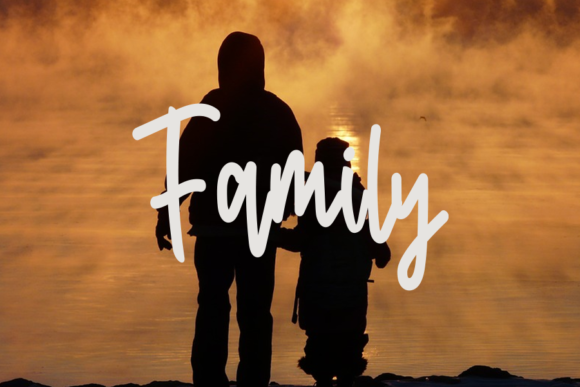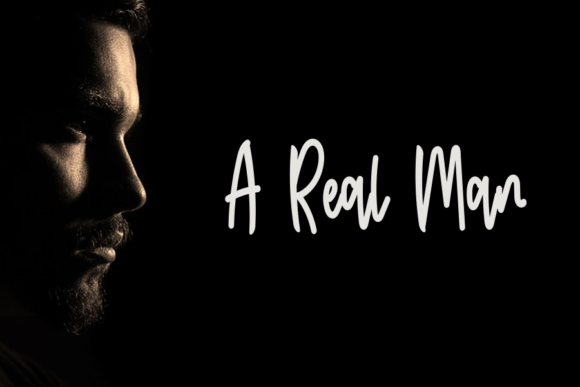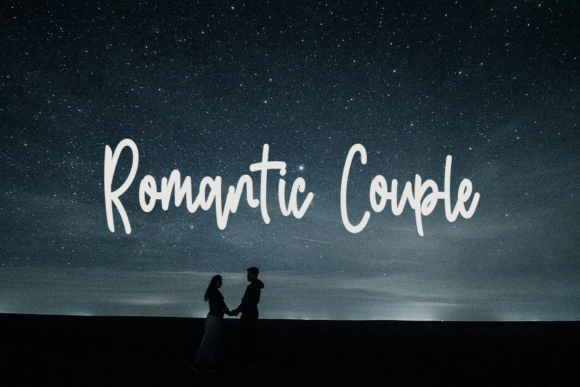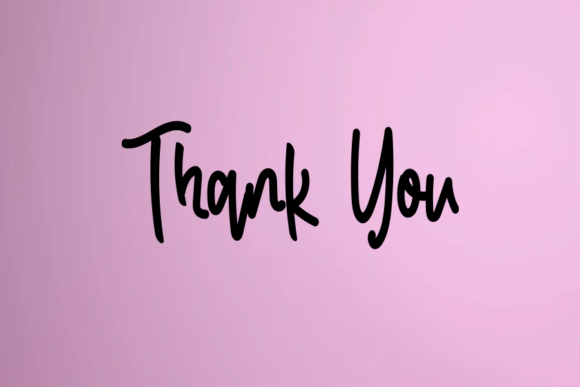
Introducing Happy Lovely Font: The Chic, Modern, and Simple Lettered Handwritten Font
Are you a designer, crafter, or DIY enthusiast looking for a font that can elevate your creative projects? Look no further than Happy Lovely Font, a beautiful, modern, and simple lettered handwritten font that’s perfect for a wide range of designs. In this article, we’ll explore the features and benefits of Happy Lovely Font, and why it’s about to become your go-to font for all your creative endeavors.
What is Happy Lovely Font?
Happy Lovely Font is a stunning, hand-lettered font that’s been carefully crafted to bring a touch of elegance and sophistication to your designs. With its chic, modern, and simple style, this font is perfect for creating beautiful headings, titles, and text that will make your projects stand out. Whether you’re working on a branding project, a wedding invitation, or a DIY craft, Happy Lovely Font is the perfect choice.
Key Features of Happy Lovely Font
So, what makes Happy Lovely Font so special? Here are some of its key features:
- Handwritten style: Happy Lovely Font has a beautiful, handwritten style that’s perfect for creating personal and unique designs.
- Modern and simple: This font has a modern and simple aesthetic that’s perfect for creating clean and elegant designs.
- Chic and sophisticated: Happy Lovely Font has a chic and sophisticated style that’s perfect for creating high-end designs.
- Versatile: This font is perfect for a wide range of designs, from branding and advertising to wedding invitations and DIY crafts.
Why Choose Happy Lovely Font?
So, why should you choose Happy Lovely Font for your next project? Here are just a few reasons:
- Easy to read: Happy Lovely Font is clear and easy to read, making it perfect for creating designs that need to communicate a message.
- Unique and personal: This font has a unique and personal style that’s perfect for creating designs that stand out.
- Flexible: Happy Lovely Font can be used for a wide range of designs, from digital projects to print materials.
- High-quality: This font is high-quality and carefully crafted to ensure that it looks great in any design.
How to Use Happy Lovely Font
Happy Lovely Font is easy to use and can be incorporated into a wide range of designs. Here are a few ideas to get you started:
- Branding and advertising: Use Happy Lovely Font to create beautiful logos, headings, and titles for your brand.
- Wedding invitations: This font is perfect for creating beautiful and elegant wedding invitations.
- DIY crafts: Happy Lovely Font can be used to create beautiful and unique DIY crafts, such as signs, cards, and gift tags.
- Digital projects: This font can be used for digital projects, such as social media graphics, blog posts, and email newsletters.
In conclusion, Happy Lovely Font is a beautiful, modern, and simple lettered handwritten font that’s perfect for a wide range of designs. With its chic, sophisticated style and versatile features, this font is sure to become your go-to font for all your creative endeavors. Whether you’re a designer, crafter, or DIY enthusiast, Happy Lovely Font is the perfect choice for creating stunning and unique designs.